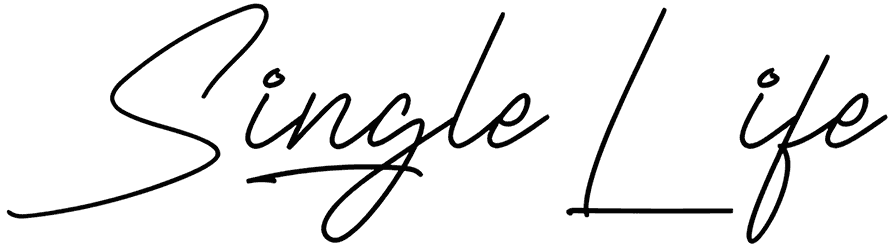
Single Life Font
Let’s illustrate a realistic and modern scheme with a unique handwritten font. Single Life has a chic and casual pen-lettered style that can be used for any formal or informal subject. Even without numbers and punctuation marks, this calligraphy font would be an apt item for many designs, like posters, logos, business cards, and the like.